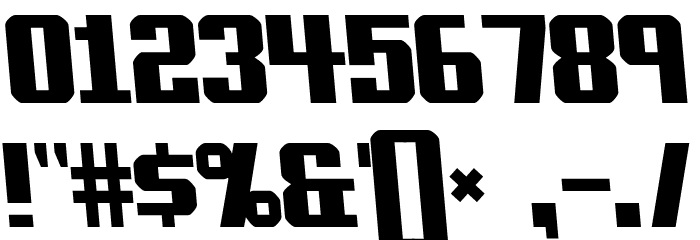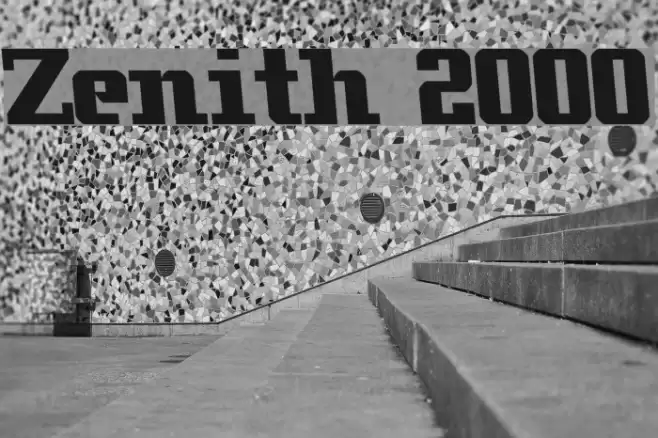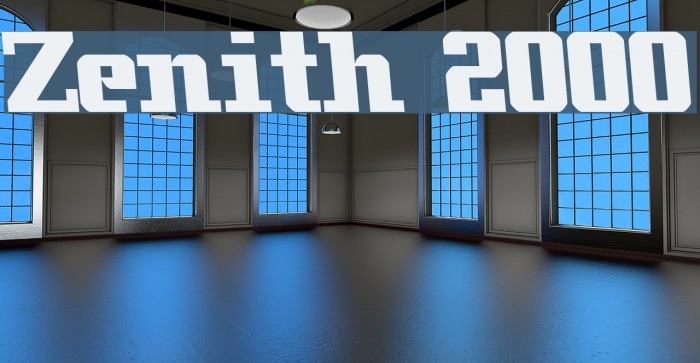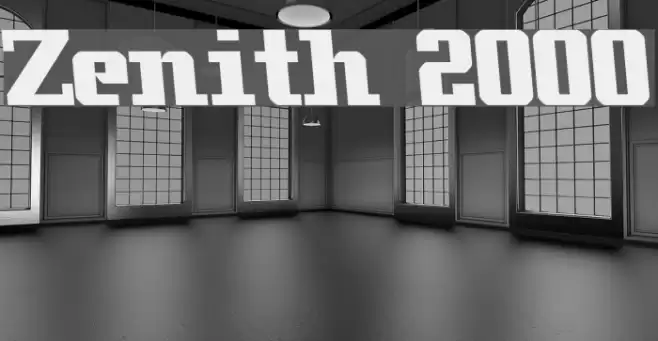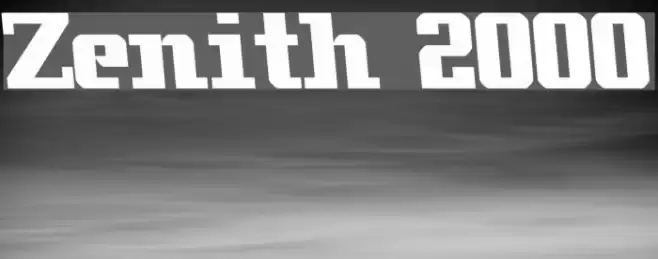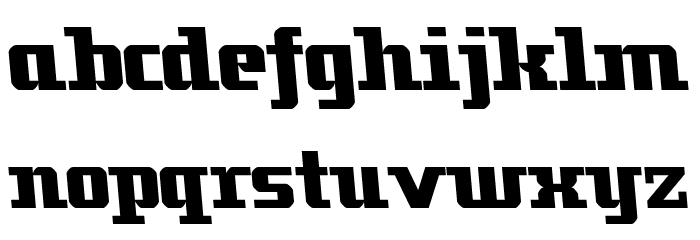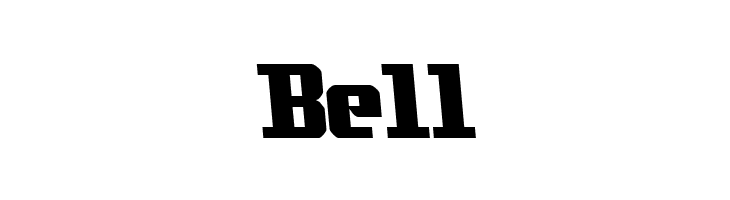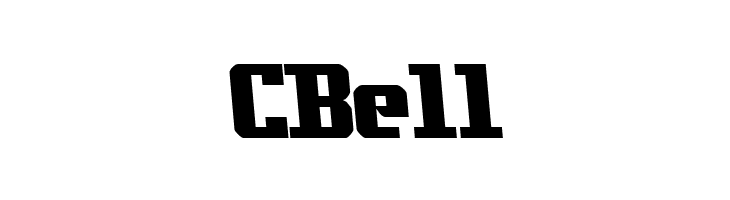
Zenith 2000 Font
Zenith 2000 Description
This font features a bold and impactful design with a strong geometric structure. The characters are wide and have a distinct blocky appearance, giving them a robust and commanding presence. The uppercase and lowercase letters maintain a consistent weight, creating a uniform look across the typeface. The numbers and special characters follow the same bold style, ensuring cohesion throughout. The font's angular edges and straight lines contribute to its modern and industrial aesthetic, making it suitable for projects that require a strong visual impact.